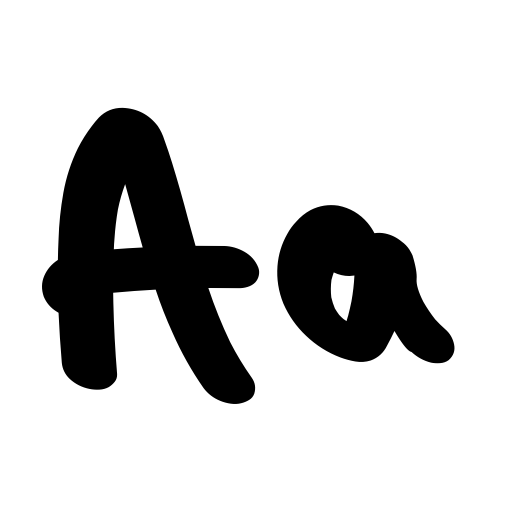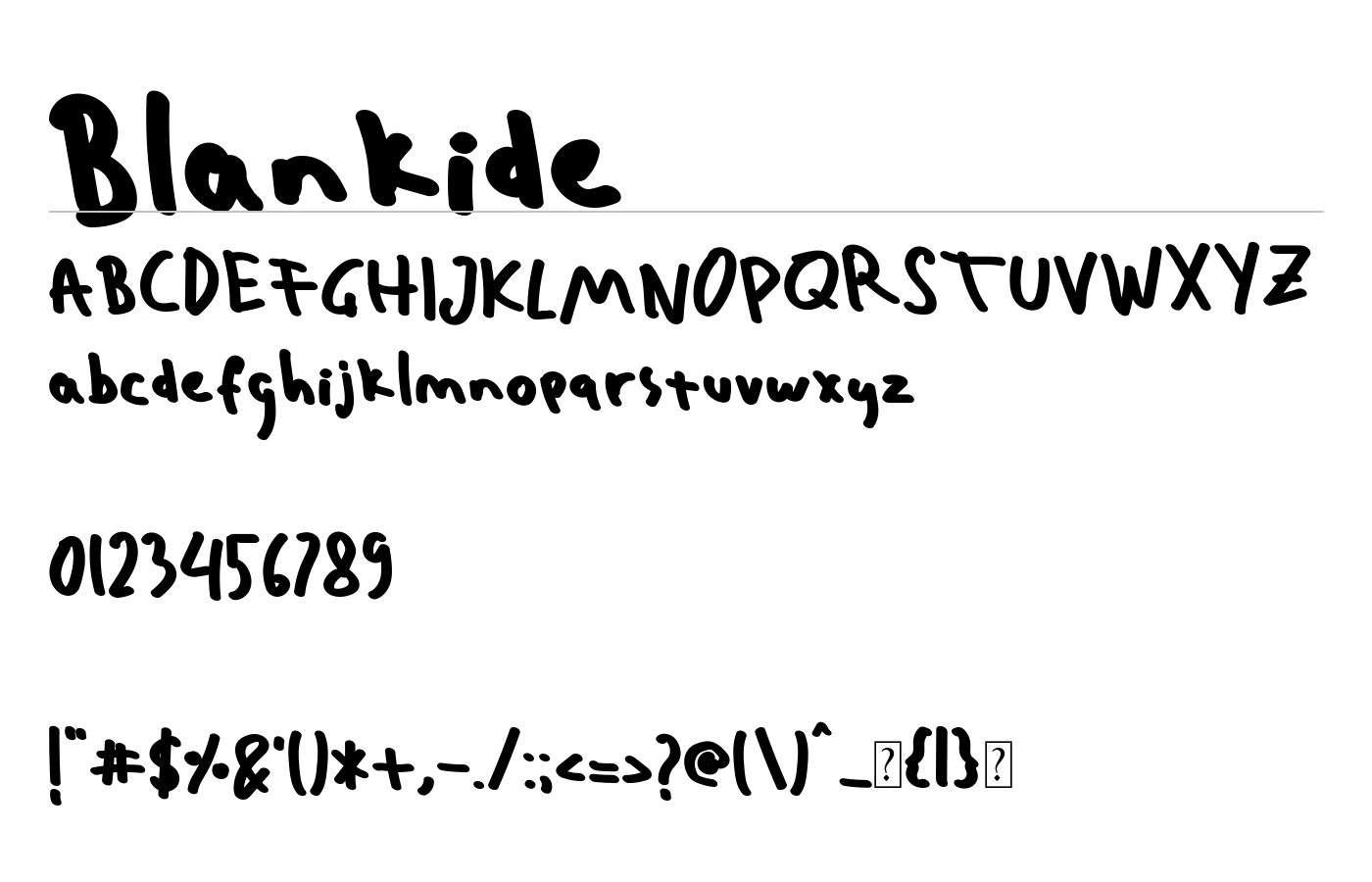
Blankide is a casual, handwritten sans serif font with a playful and friendly personality. Its thick, uneven strokes and rounded forms give it an approachable and informal feel, making it perfect for creative projects, children's materials, and branding that seeks warmth and originality. This font works well for headlines, logos, and any design that benefits from a relaxed, hand-drawn touch.
Blankide Font